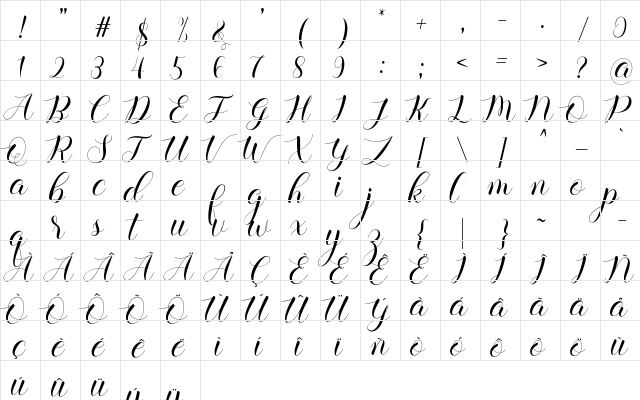
balerina Regular
| Designer | Fahri Rizal |
Design Context for balerina Typeface
balerina is a composed and adaptable typeface that performs quietly and consistently across a wide range of design contexts.